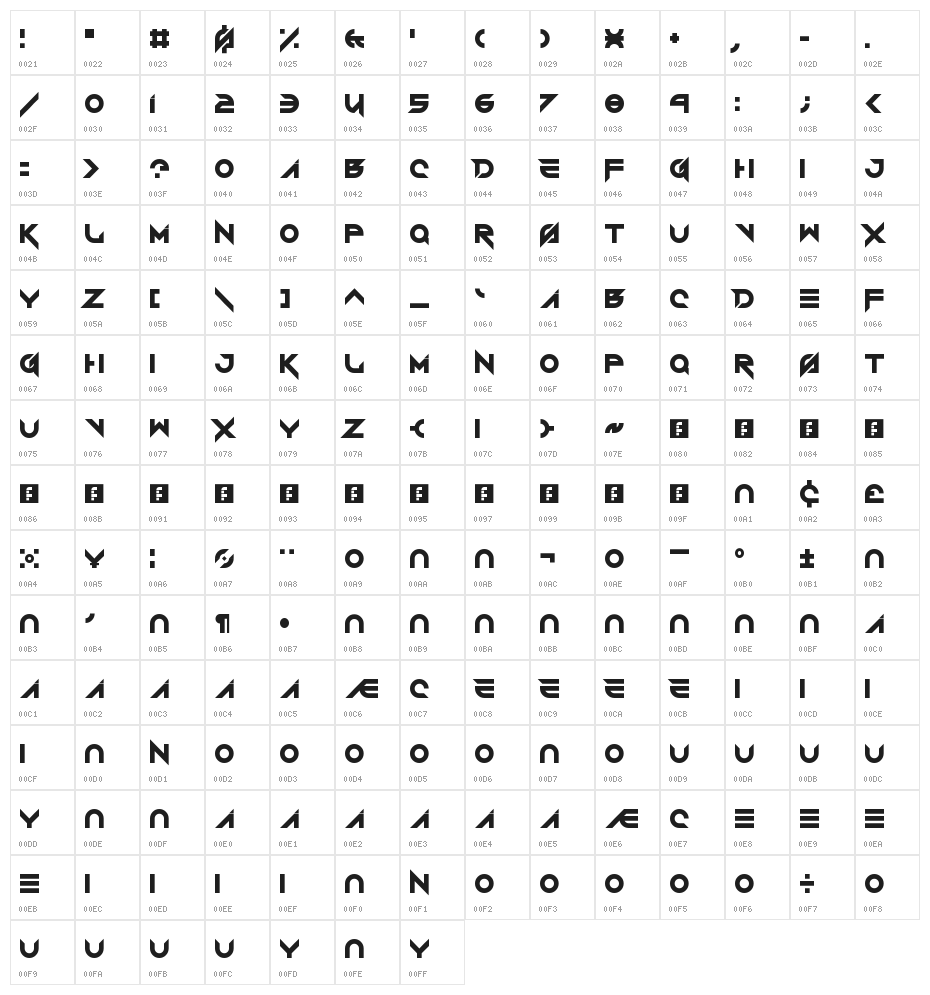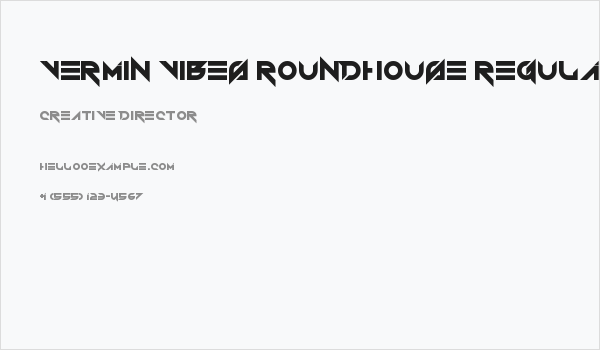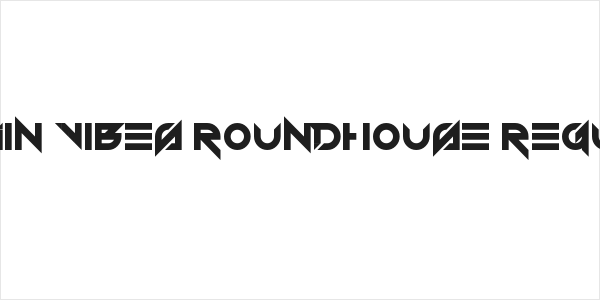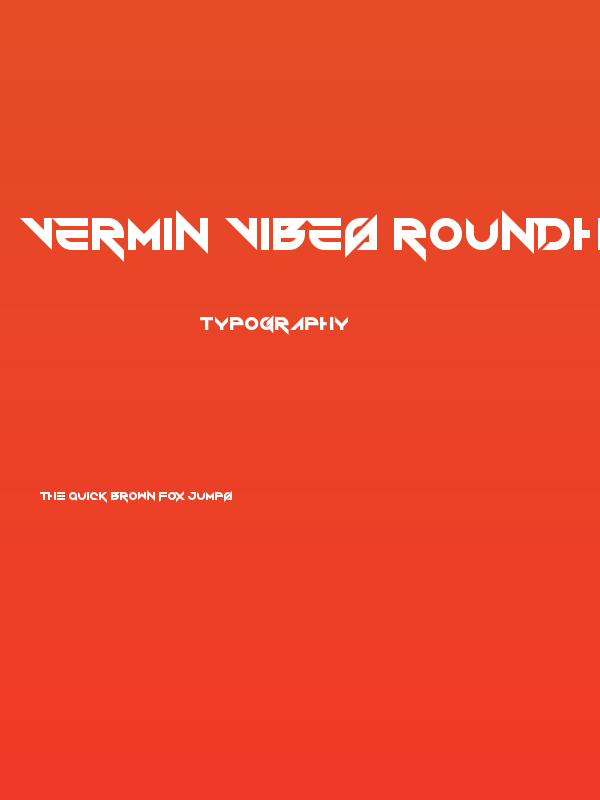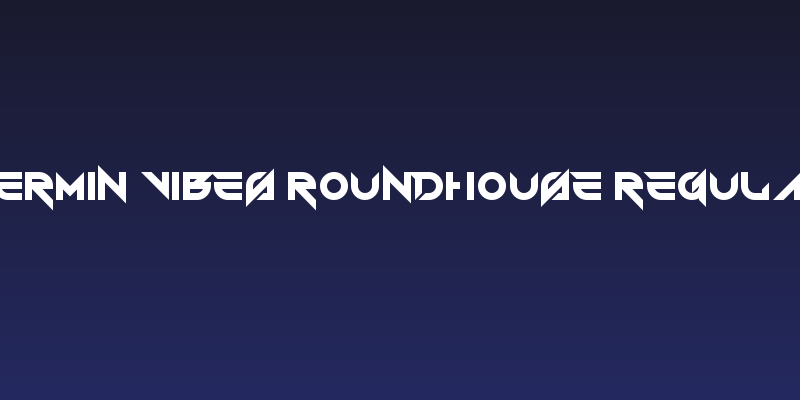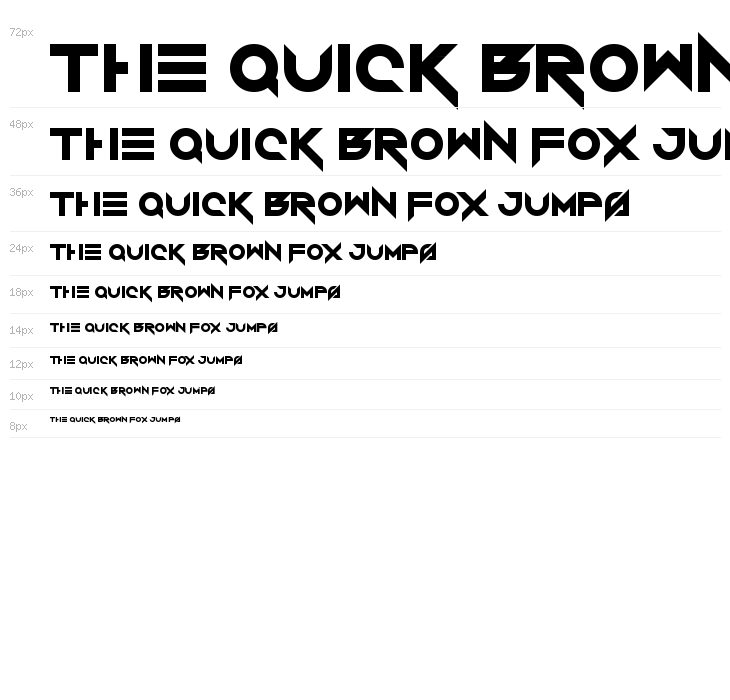
Vermin Vibes Roundhouse Regular Font
Vermin Vibes Roundhouse Regular Description
This font features a bold, geometric design with sharp angles and a futuristic aesthetic. The characters are constructed with a combination of thick and thin lines, creating a dynamic and edgy appearance. The uppercase and lowercase letters maintain a consistent style, with unique cutouts and angular shapes that give the font a distinctive look. Numbers and special characters are equally stylized, ensuring a cohesive visual experience across all text elements. This font is ideal for projects that require a modern and striking visual impact.
| Proposed Projects | Ideal for branding, posters, album covers, and digital artwork that require a modern and impactful style. |